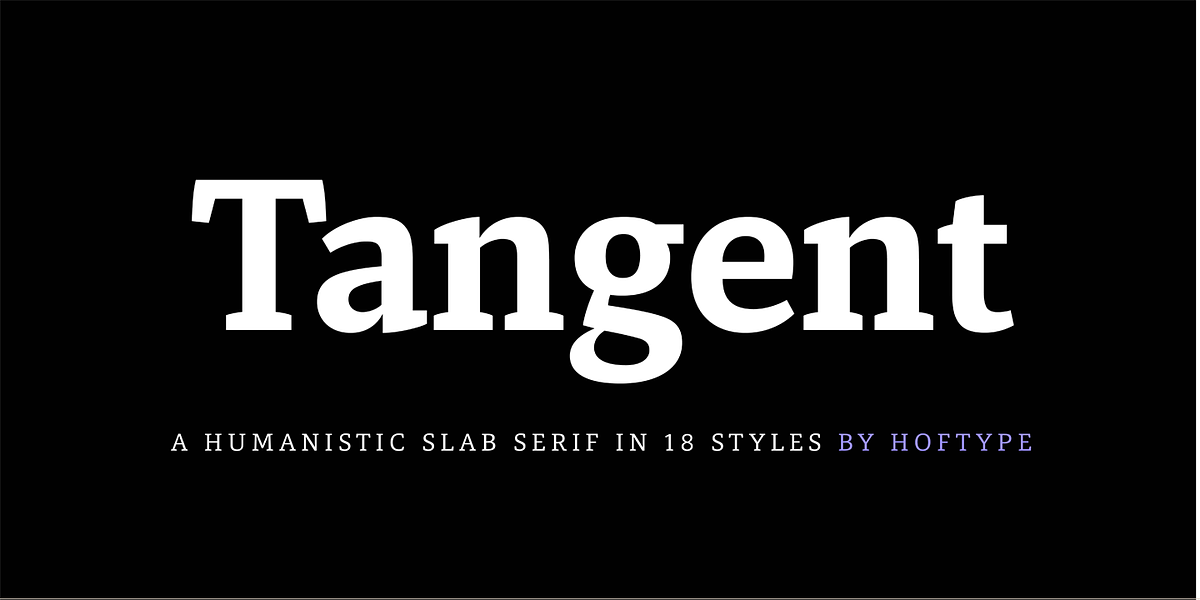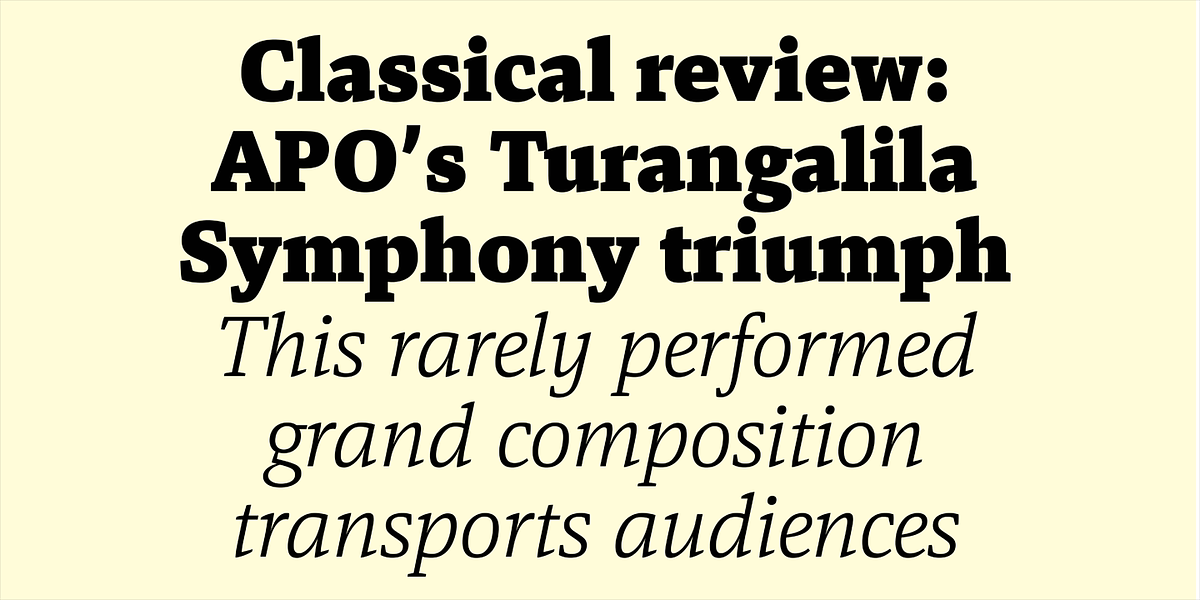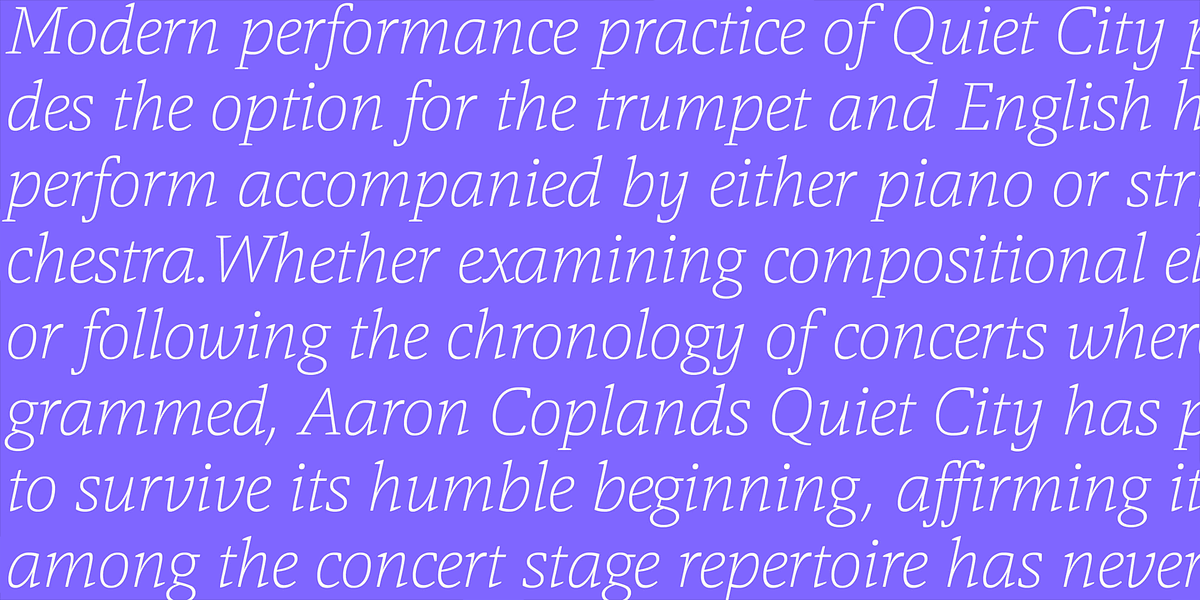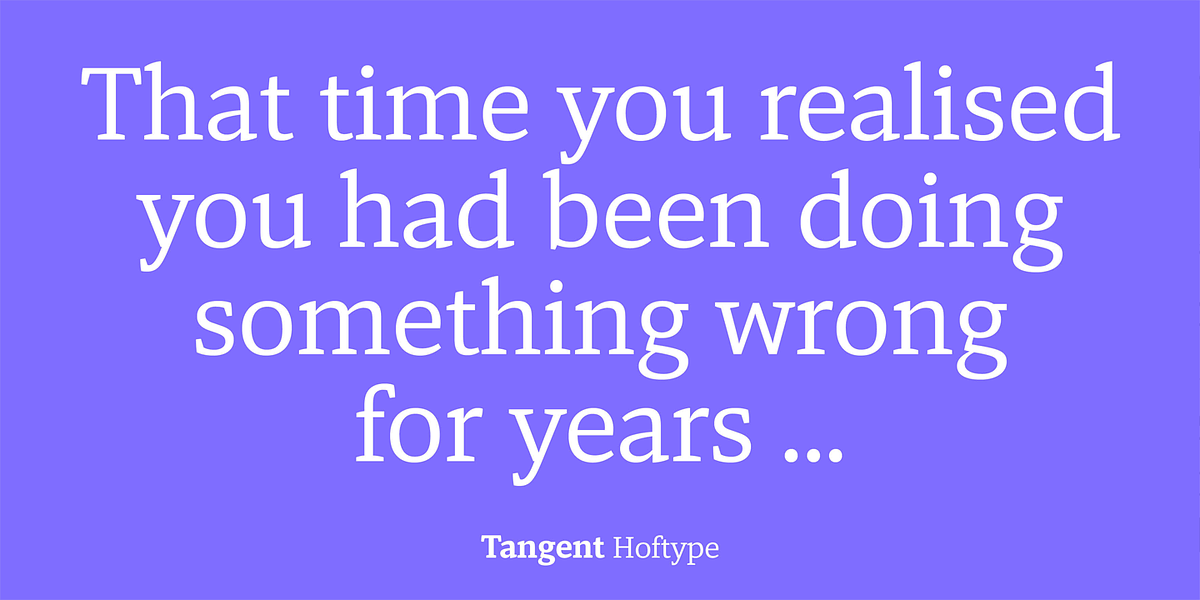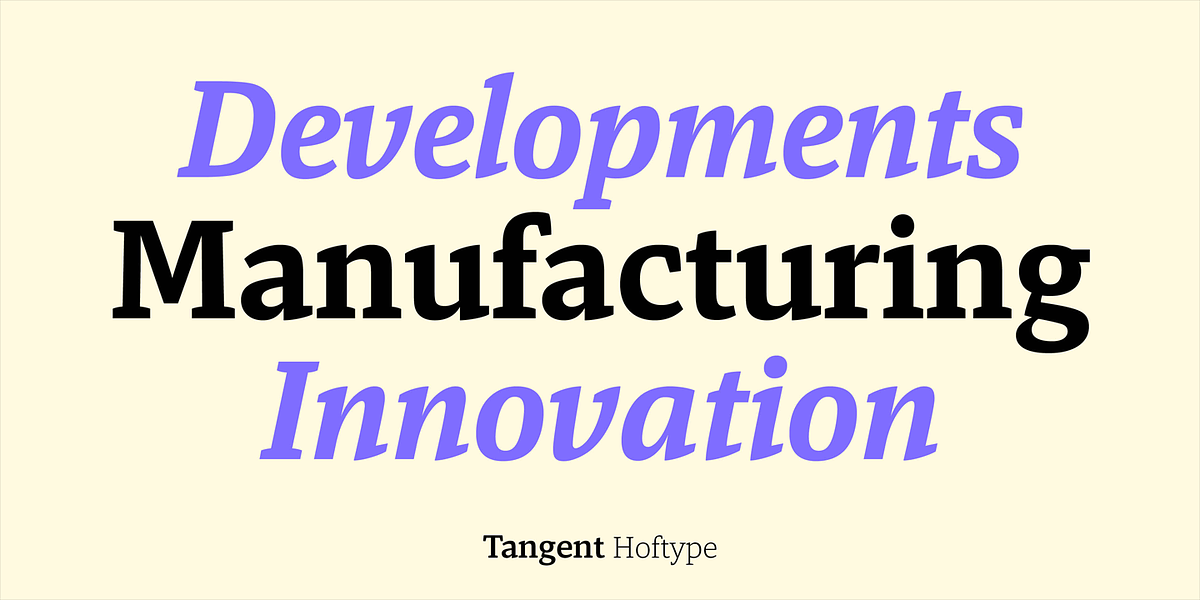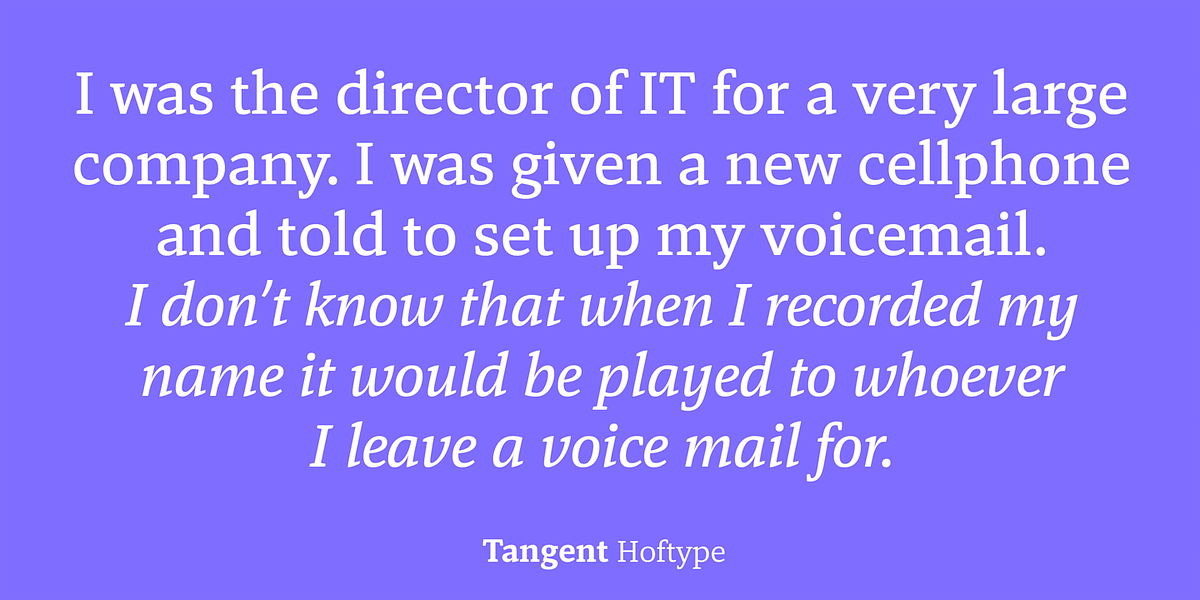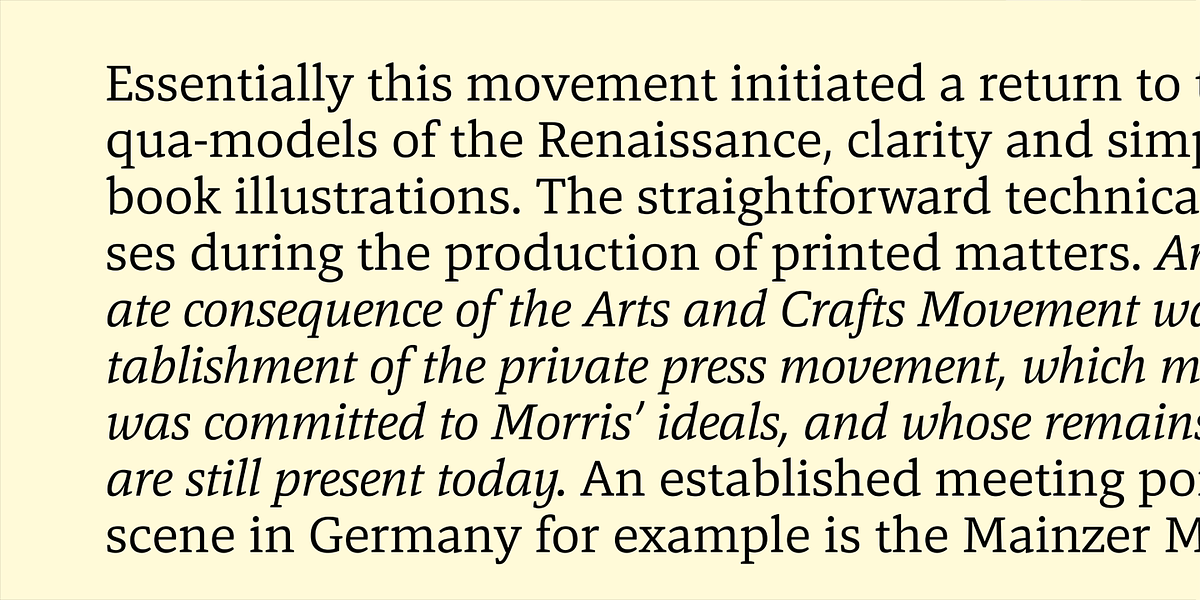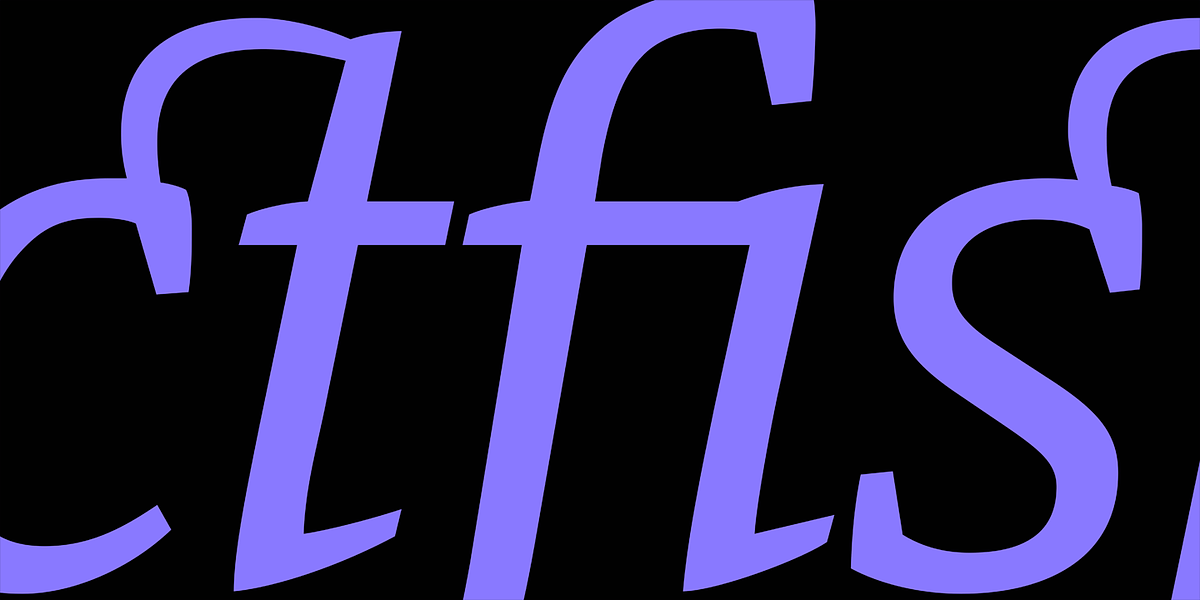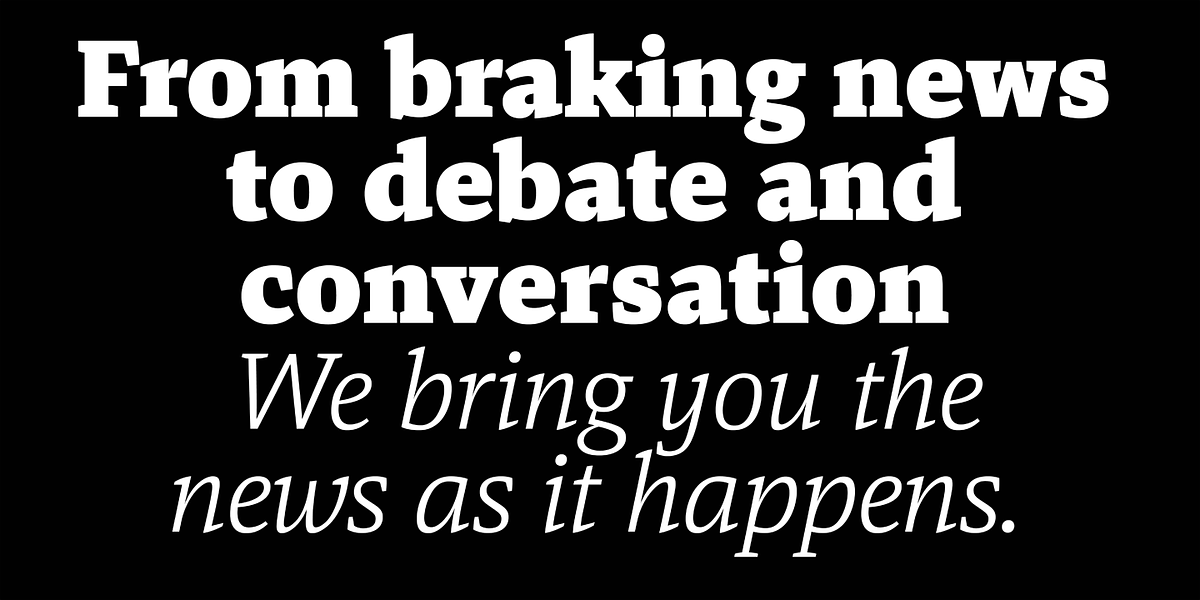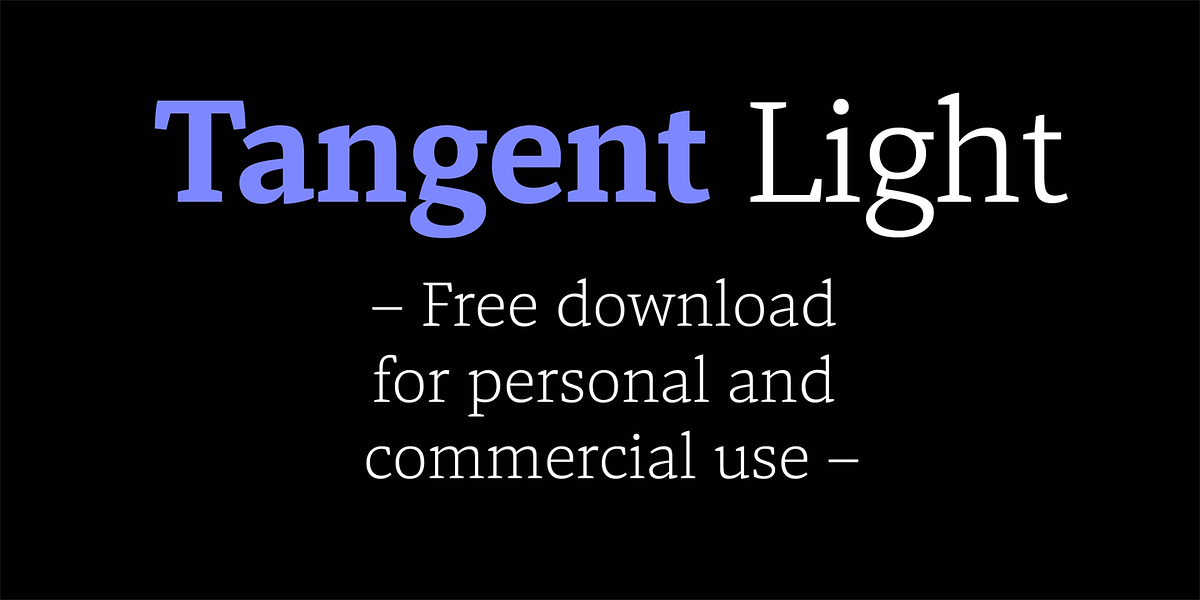
Tangent
Tangent is a humanist slab serif typeface designed to offer a fresh perspective. Its strict graphic outline gives it a crisp and modern feel while retaining humanistic qualities. It comes in 18 styles, supporting a wide range of weights for versatility. The font's OpenType features include standard and discretionary ligatures, various numeral styles, currency symbols, arrows, and alternative characters, making it suitable for diverse typographic applications.